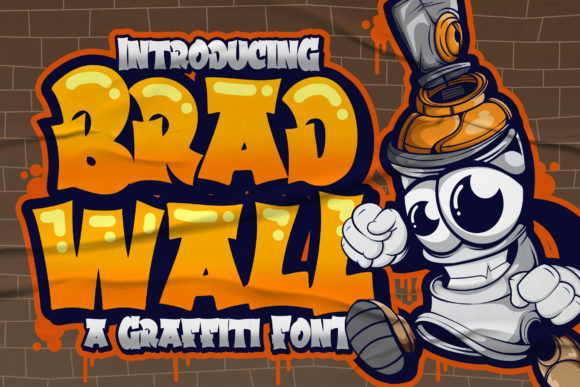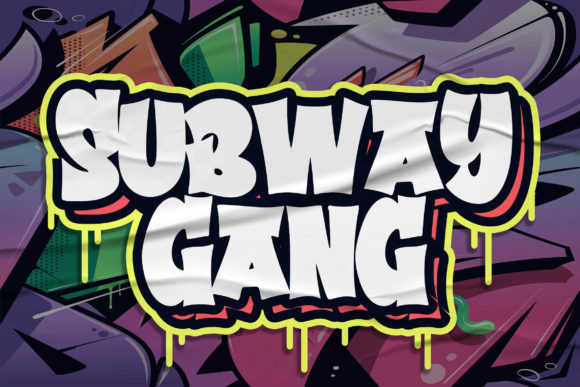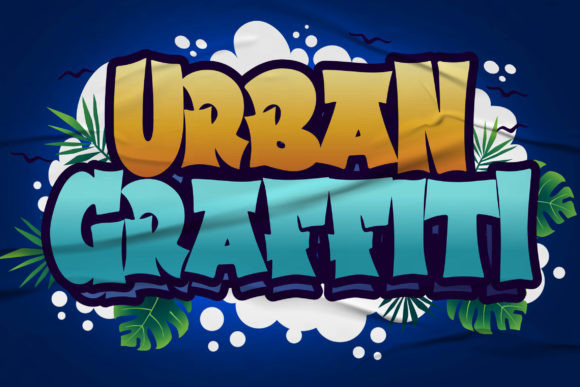
Bradwall Font
Bradwall is a cool, graffiti styled display font. Whether you use it for cartoon related designs, children games or just any creation that requires a lovely touch, this font will be an amazing choice.